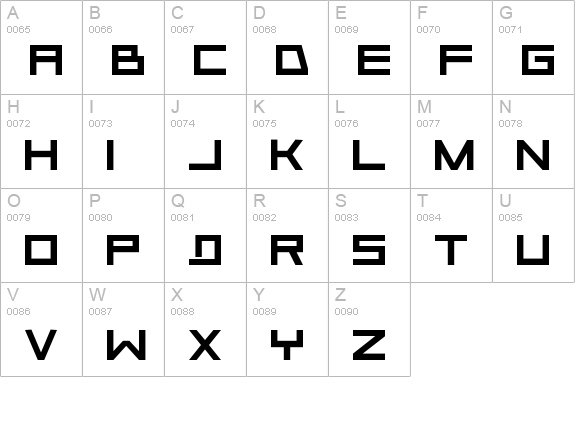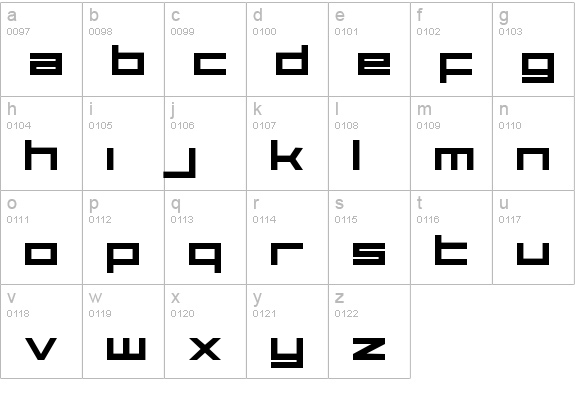
Aerial Font Details
Aerial font is a sleek and modern typeface that exudes sophistication and professionalism. With its clean lines and versatile design, Aerial is perfect for a wide range of projects, from business presentations to creative branding. The font's timeless elegance will add a touch of class to any design. Best of all, Aerial font is available for free download at FontsMarket.com. This means you can easily access this high-quality typeface without any cost, making it a valuable asset for designers and creatives looking to elevate their projects. Whether you're working on a print design, website, or any other creative endeavor, Aerial font is sure to make a lasting impression. Download it today and see the difference it can make in your work!